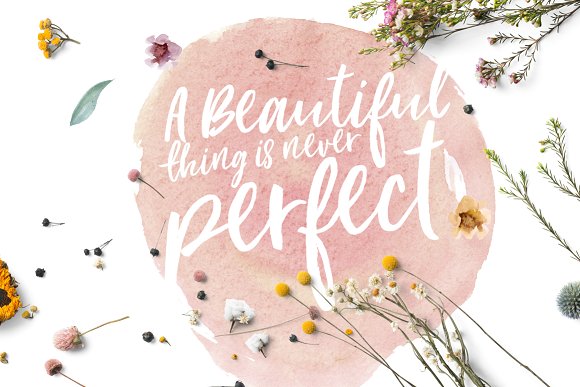
Unleash the enchanting allure of Loving Saskia, a captivating script font that will ignite your creativity and leave a lasting impression on your audience. Loving Saskia is not just a font; it's an evocative journey through the world of handwritten elegance, where each letter dances gracefully, leaving a trail of visual poetry.
With its meticulously crafted curves and delicate flourishes, Loving Saskia exudes a timeless beauty that will elevate your designs to new heights of sophistication. Its organic flow and natural charm will add a touch of warmth and personality to your projects, making them stand out from the mundane and ordinary.
Immerse yourself in the world of Loving Saskia and discover a symphony of creative possibilities. This versatile font seamlessly adapts to a myriad of design styles, from the classic and traditional to the modern and whimsical. Whether you're creating logos, invitations, social media graphics, or any other visual masterpiece, Loving Saskia will effortlessly elevate your work and make it shine.
With Loving Saskia as your creative companion, you can express yourself in ways you never thought possible. Its elegant strokes will add a touch of refinement to your designs, while its playful spirit will inject a sense of joy and wonder. Let Loving Saskia be your muse, guiding you on an artistic odyssey where imagination knows no bounds.
Don't let your designs be confined to the ordinary. Embrace the extraordinary with Loving Saskia, a font that will transform your creative visions into tangible works of art. Download Loving Saskia today and embark on a journey where beauty and innovation intertwine, creating designs that captivate and inspire.